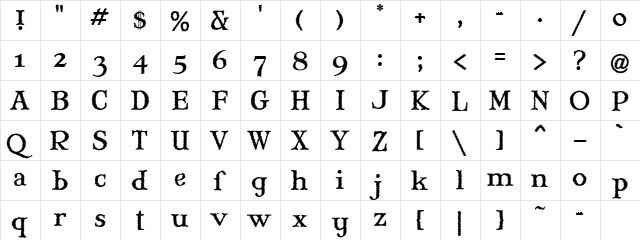
Mary Jane Windlin Regular
Design Context for Mary Jane Windlin Typeface
Mary Jane Windlin takes a measured approach to typography — its balanced proportions and neutral character make it a reliable workhorse for both digital and print work.